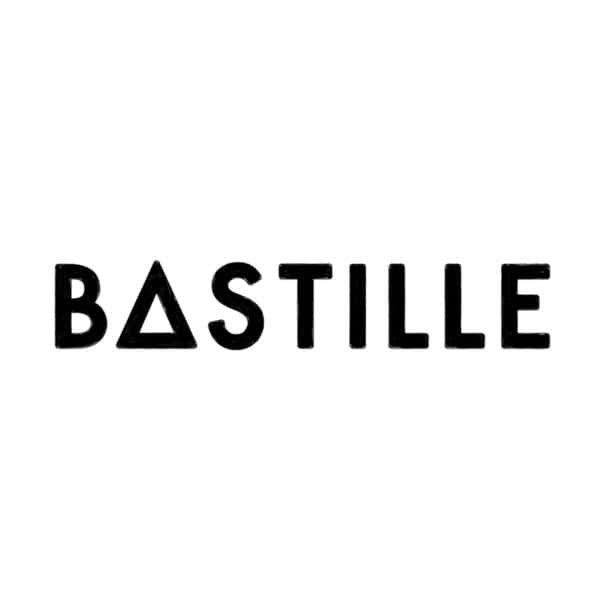
bastielle
Elevate Your Designs with the Bastielle Font
Bastielle Font, crafted by renowned designer Alex Turner in 2023, stands out with its bold and contemporary character shapes. This typeface is ideal for a myriad of design projects, including web and print applications, logos, and promotional materials. Its strong presence makes it perfect for attracting attention and creating memorable branding.
Key Features and Available Formats of Bastielle Font
The Inspiration Behind Bastielle Font
Bastielle Font draws its inspiration from modern design trends, emphasizing geometric shapes and clean lines. Alex Turner’s commitment to quality is evident in the font’s detailed craftsmanship, aiming to provide users with a typeface that is both functional and visually striking. This font resonates well with contemporary aesthetics, making it a go-to choice for modern designs.
Ideal Uses for Bastielle Font
Bastielle is perfect for projects that demand a bold statement. Whether for websites, branding, product packaging, or social media graphics, this font is designed to make your text stand out. Its unique character complements any creative venture, ensuring that your message is conveyed with clarity and style.